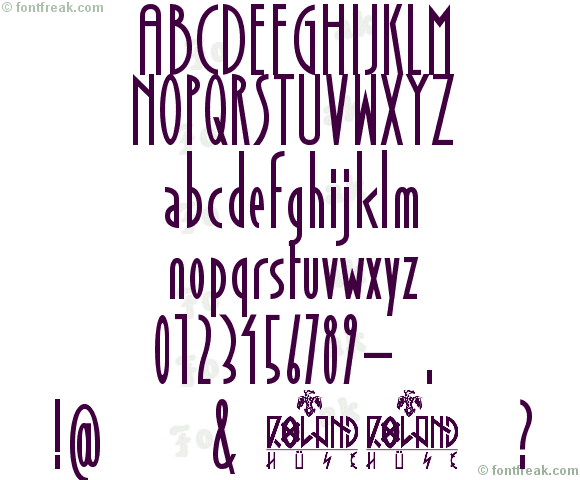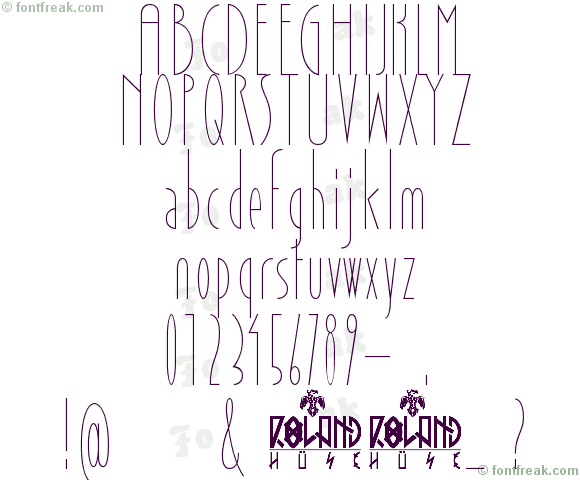
November Sky Demo
November Sky Demo Bold
About November Sky Demo
The November Sky Demo font by Roland Huse is a striking display typeface that captures attention with its unique design. As a bold, decorative font, it features a harmonious blend of modern elegance and artistic flair, making it ideal for a variety of creative projects. The font exhibits a medium stroke weight with subtle contrast, ensuring legibility while still providing a visually appealing aesthetic. Its spacious letterforms and playful curves evoke a sense of creativity and freedom, making it stand out in any design.
This font is particularly well-suited for wedding invitations, where its bold yet elegant style can enhance the overall theme. Additionally, it works wonderfully for movie posters, effectively conveying a sense of drama and excitement. Restaurant menus can also benefit from the November Sky Demo font, adding a touch of sophistication that reflects the establishment's ambiance. Content creators looking to elevate their branding materials will find this font to be an excellent choice for logos and social media graphics, as it leaves a lasting impression on viewers.
Graphic designers and small business owners will appreciate the versatility and charm of the November Sky Demo font. It provides an opportunity to infuse creativity into any project, appealing to a wide audience. The font's design allows it to adapt seamlessly to both formal and casual contexts, making it a valuable asset for various applications.
In summary, the November Sky Demo font stands out due to its captivating design and functional versatility. With a free license available, it’s an excellent option for anyone seeking to enhance their projects with a bold, decorative typeface. Don’t miss the opportunity for a November Sky Demo font free download to elevate your creative work today.